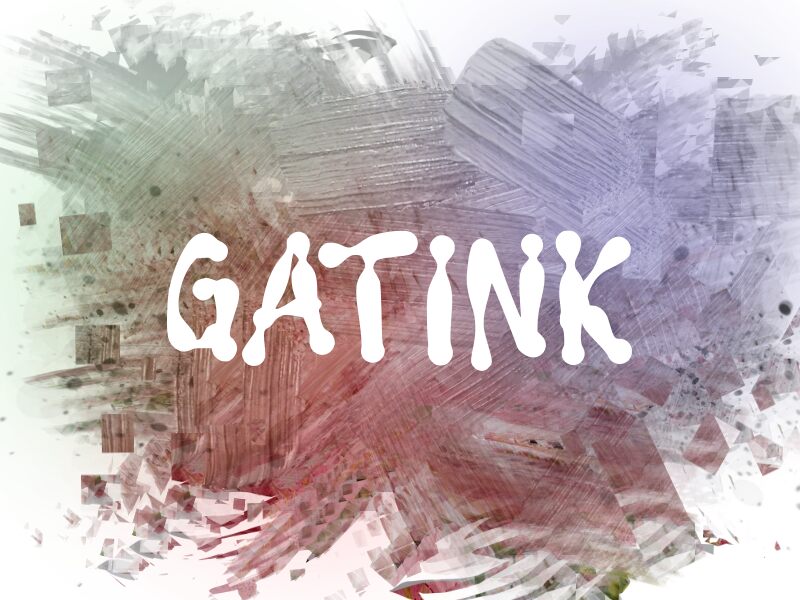
GATINK
Gatink font is a groovy, playful typeface from wep that is bold in all the right places. A polyhedric display font with cheerful characters, the Gatink letters are full of movement set on upward curved axis. Made utilizing utmost care and precision, no details were ignored during its creation process. This free font ultimately achieves its purpose of being livable, entertaining, yet legible and illustrious.
Use this one in professional contexts like logo designs and packaging projects for a variety of industries; mascots, toys, children products or clothing labels. Also be sure to try it along with materials destined for personal use such as scrapbooking or invitation cards!